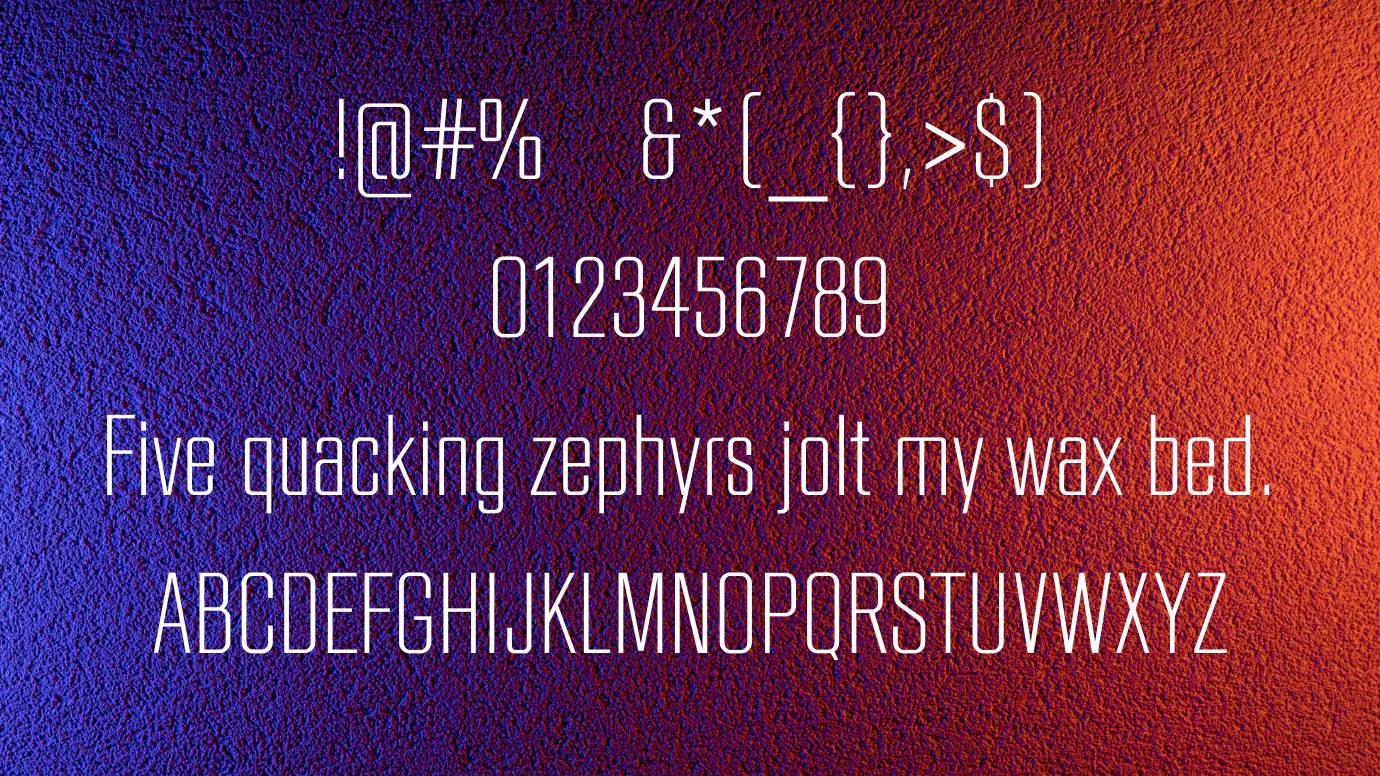
In this post, we'll look at the RBNo2 font, which is part of the top-notch sans serif typeface family. It was influenced by late-nineteenth-century industrial fonts with German roots in terms of straightness and geometry. When combined with other sans serifs, slab serifs, and serif typefaces, it catches the attention of its viewers when used for headlines and short-copy texts.
Furthermore, the regular styles combined with the alternate versions will make the font an ideal partner for technical, modern, and fashionable impressions, as well as luxury and super-quality environments. This font family includes two styles: Light Regular and Light Alternative Regular. Rene Bieder, a well-known graphic designer, created this font family.
Each style contains a variety of interesting characters such as uppercase, lowercase, punctuation marks, numbers, and a variety of special characters. This font, which is similar to the source code pro sans font, would make your texture content easy to read. This fantastic typeface is available for free download from our website, but only for personal use.
This is an excellent sans-serif typeface inspired by late-nineteenth-century industrial fonts. Rene Bieder created and shared it.